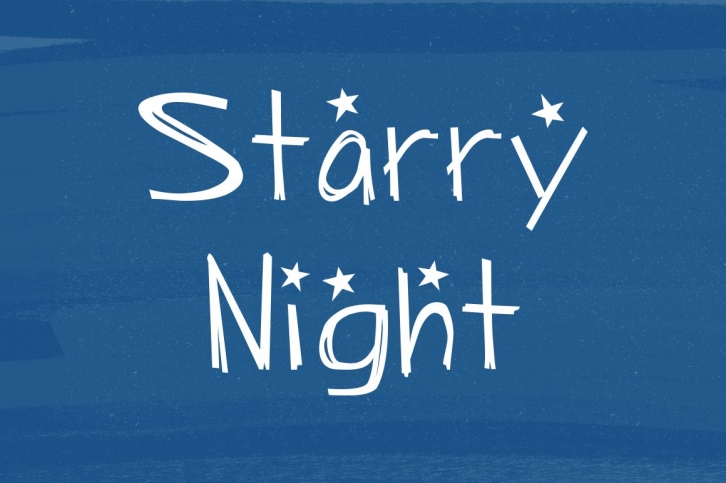
This slighty messy handwritten font was inspired by the scrawl of a teenager given a marker. Meaning it was inspired by my own quick writing at the time. Right down to the stars.